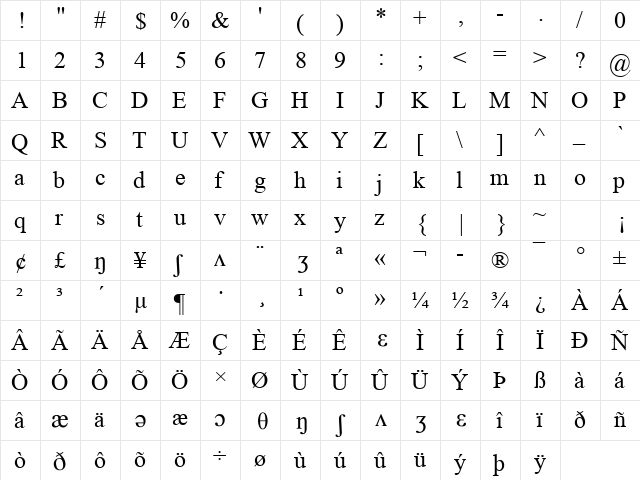
AW Times New Roman Regular
| Foundry | Monotype Typography |
| Designer | Monotype Type Drawing Office - Stanley Morison, Victor Lardent 1932 |
Design Context for AW Times New Roman Typeface
AW Times New Roman takes a measured approach to typography — its balanced proportions and neutral character make it a reliable workhorse for both digital and print work.